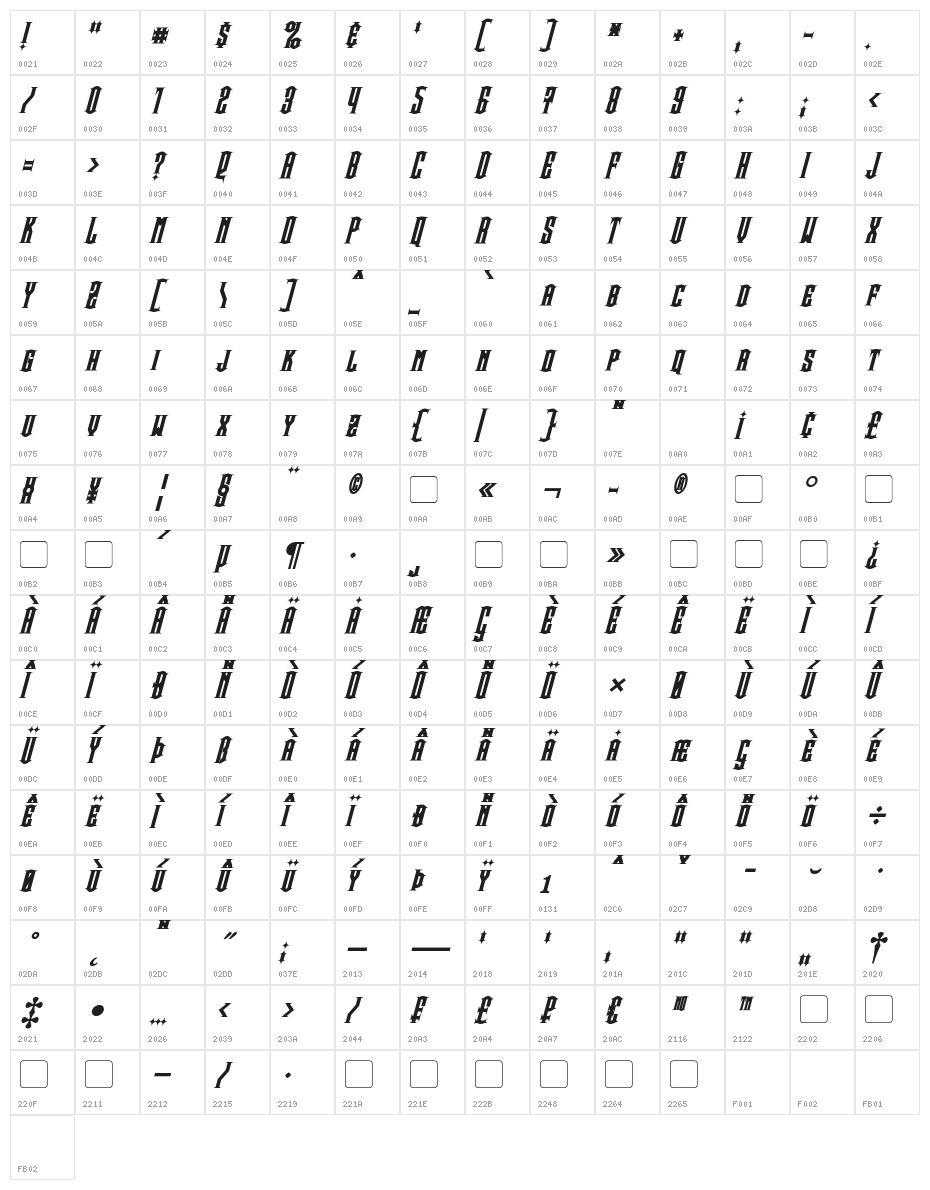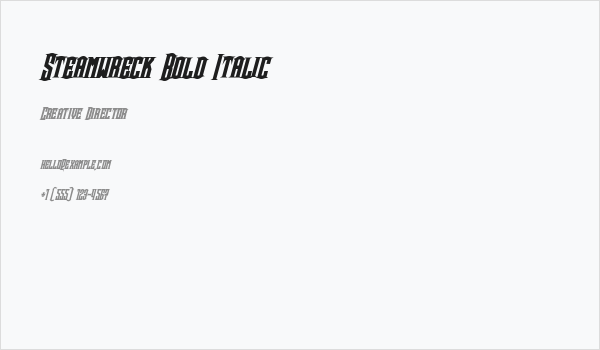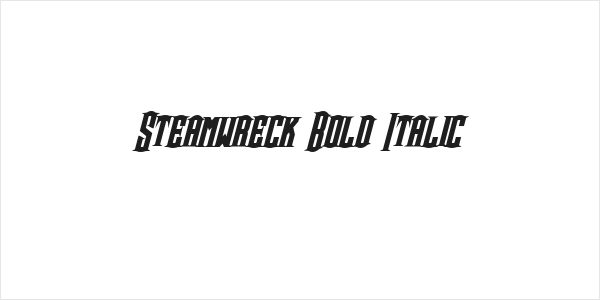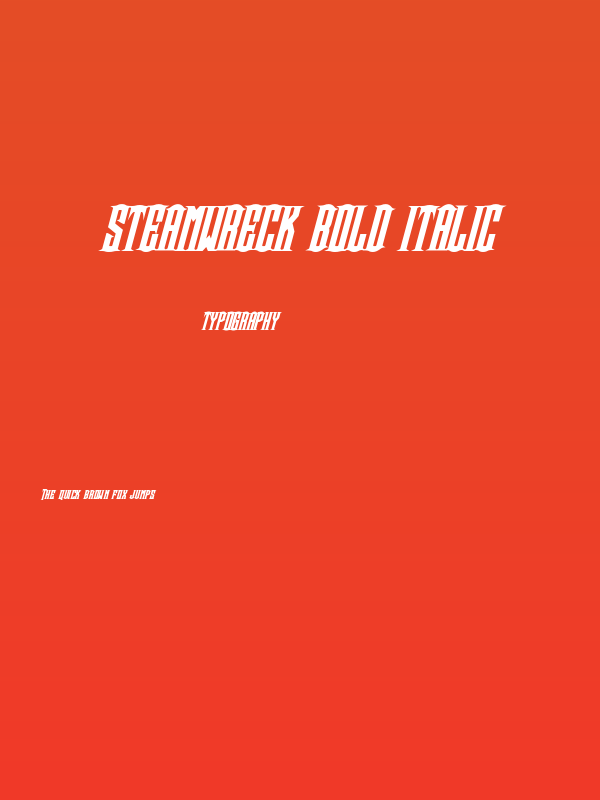
Steamwreck Bold Italic Font
Steamwreck Bold Italic Description
This font features a bold and italicized style with a distinct, edgy appearance. The characters are sharply angled, giving a dynamic and aggressive look. The strokes are thick and consistent, providing a strong visual impact. The uppercase and lowercase letters maintain a cohesive design, with the uppercase being particularly prominent. Numbers and special characters are designed to match the overall aesthetic, ensuring uniformity across all elements. This font's unique style makes it stand out, suitable for projects that require a bold statement.
| Proposed Projects | Ideal for posters, logos, video game titles, and any project needing a bold, impactful typeface. |